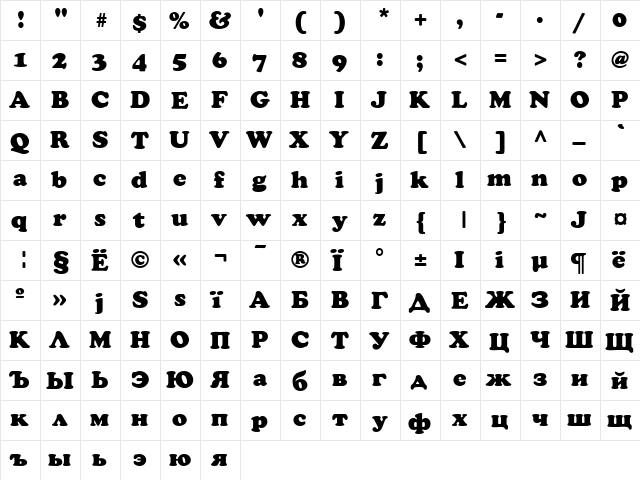
AGCooperCyr Roman
Design Context for AGCooperCyr Typeface
AGCooperCyr offers clean, dependable letterforms without strong stylistic allegiance, making it a practical choice for designers who need flexibility.